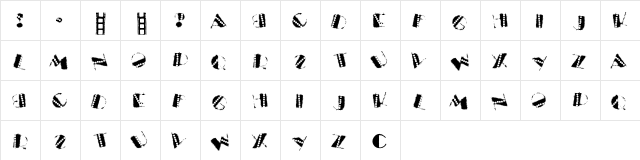
la hotel viver Regular Font Preview
la hotel viver Regular
Design Context for la hotel viver Typeface
la hotel viver is a composed and adaptable typeface that performs quietly and consistently across a wide range of design contexts.